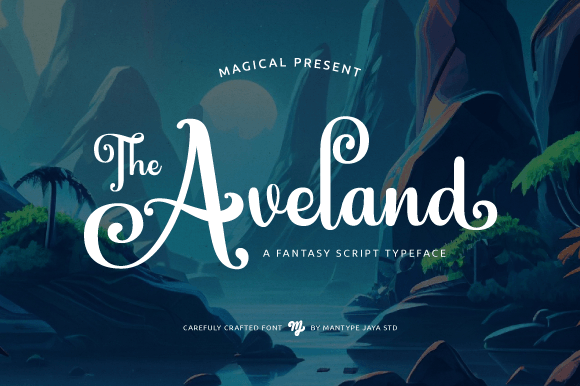
Journey into a world of boundless imagination with The Aveland Font, a script font that captures the essence of fantasy and enchantment. Its enchanting characters dance across the page, evoking a sense of wonder and magic that will transport you to distant realms.
The Aveland Font is a versatile font family perfect for a wide range of creative projects. Whether you're designing a captivating brand logo or crafting a whimsical book cover, The Aveland Font will add a touch of elegance and sophistication to your work. Its graceful curves and flowing lines create a visually stunning aesthetic perfect for creating eye-catching posters, greeting cards, or invitations.
Dive into the world of The Aveland Font and let your creativity soar. With its vast array of alternates, ligatures, and commonly accented characters, you'll have all the tools you need to express yourself freely. The font's PUA encoding ensures easy access to all of its amazing glyphs and ligatures, allowing you to weave intricate and magical words into your designs.
The Aveland Font is more than just a font; it's a gateway to a world of imagination and wonder. Its enchanting characters will transport you to distant lands, where dreams come alive, and magic fills the air. So embrace the magic of The Aveland Font and let it unleash the boundless creativity within you.